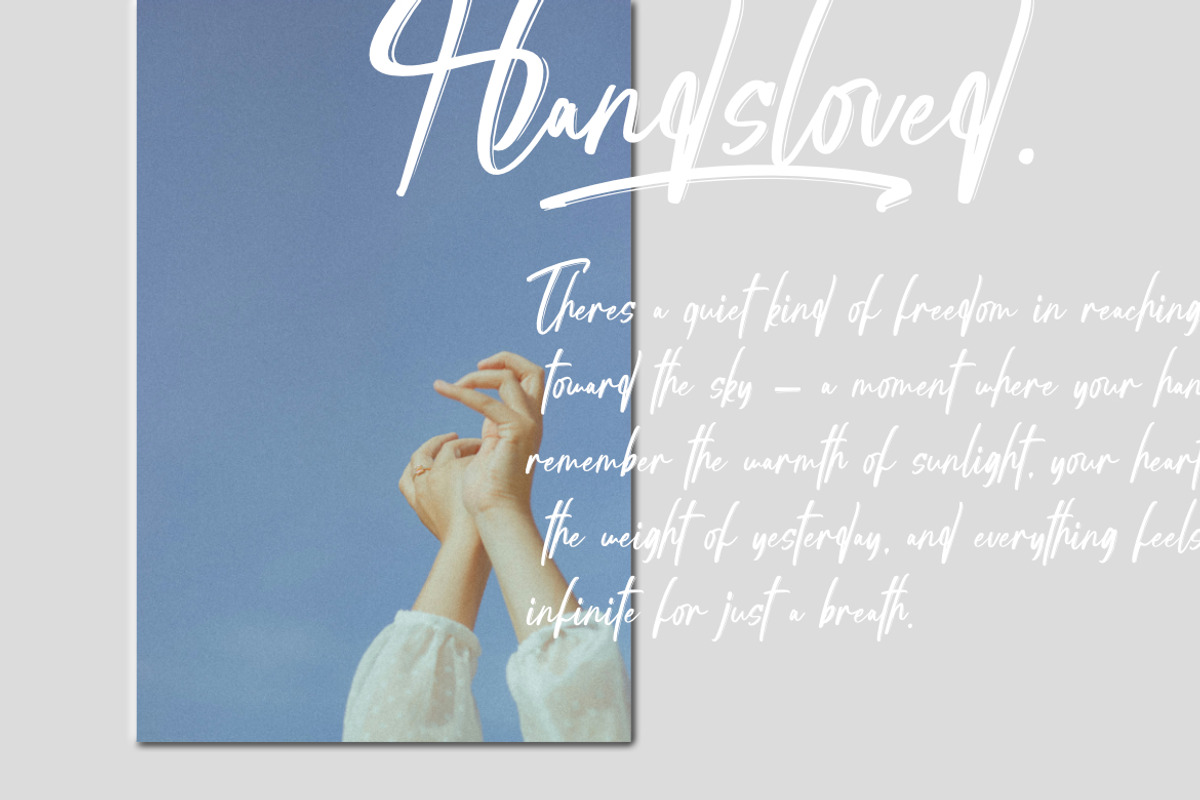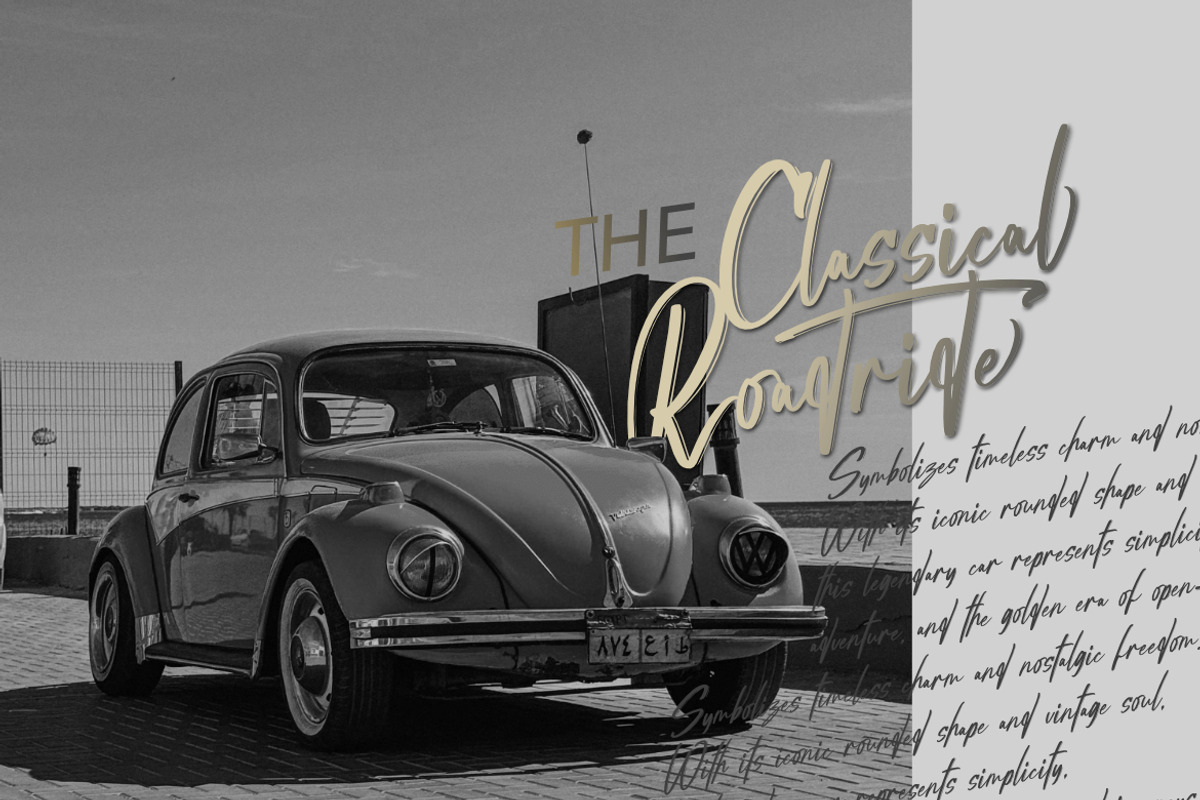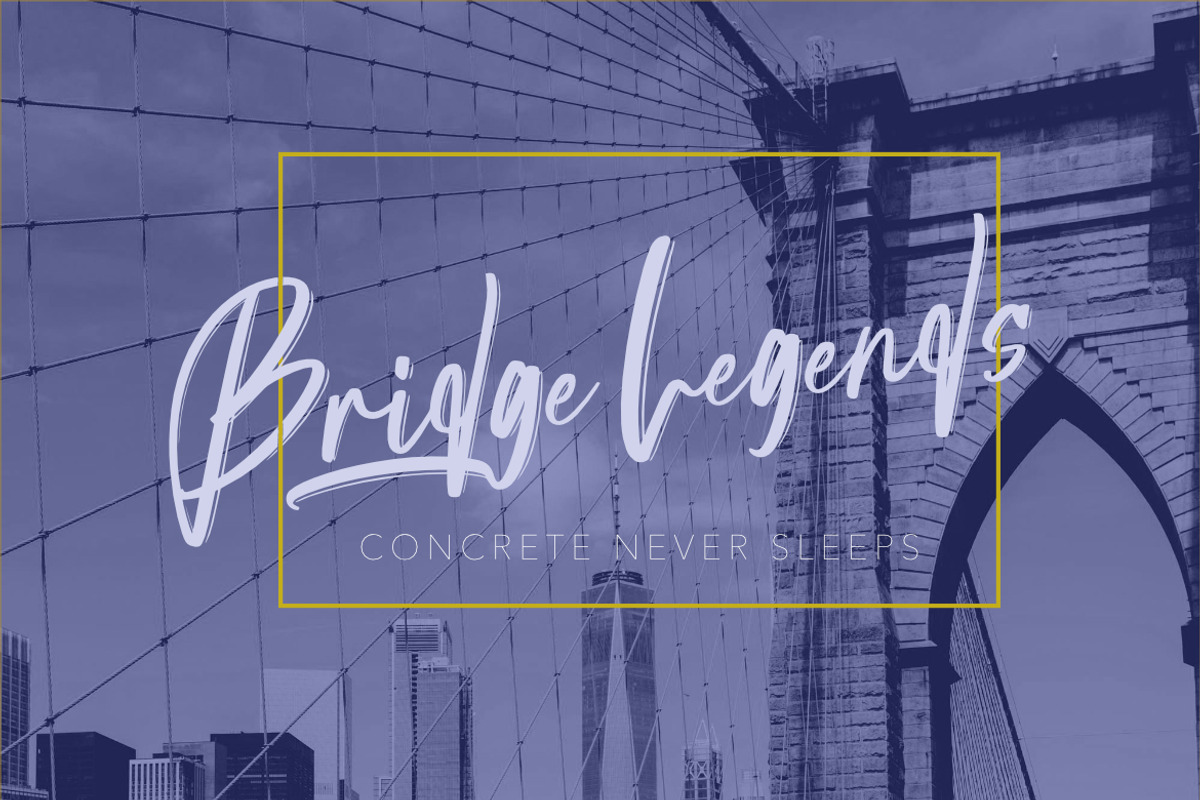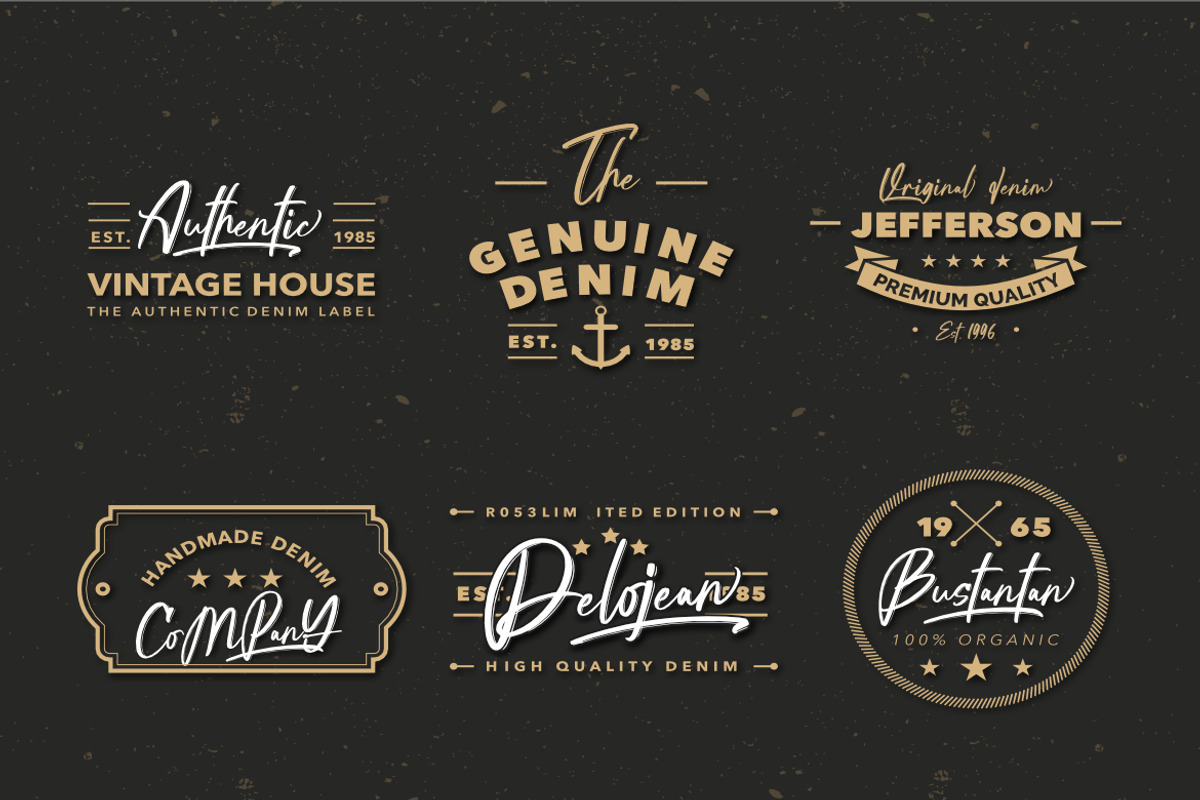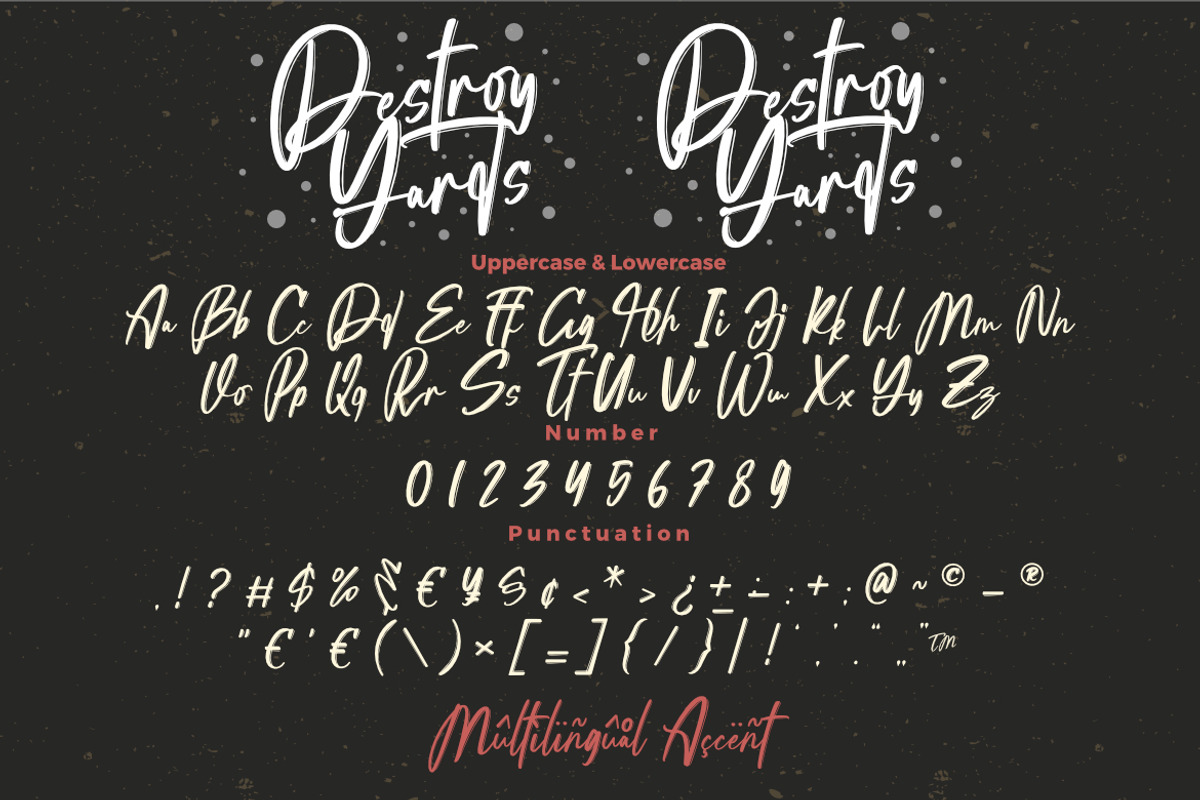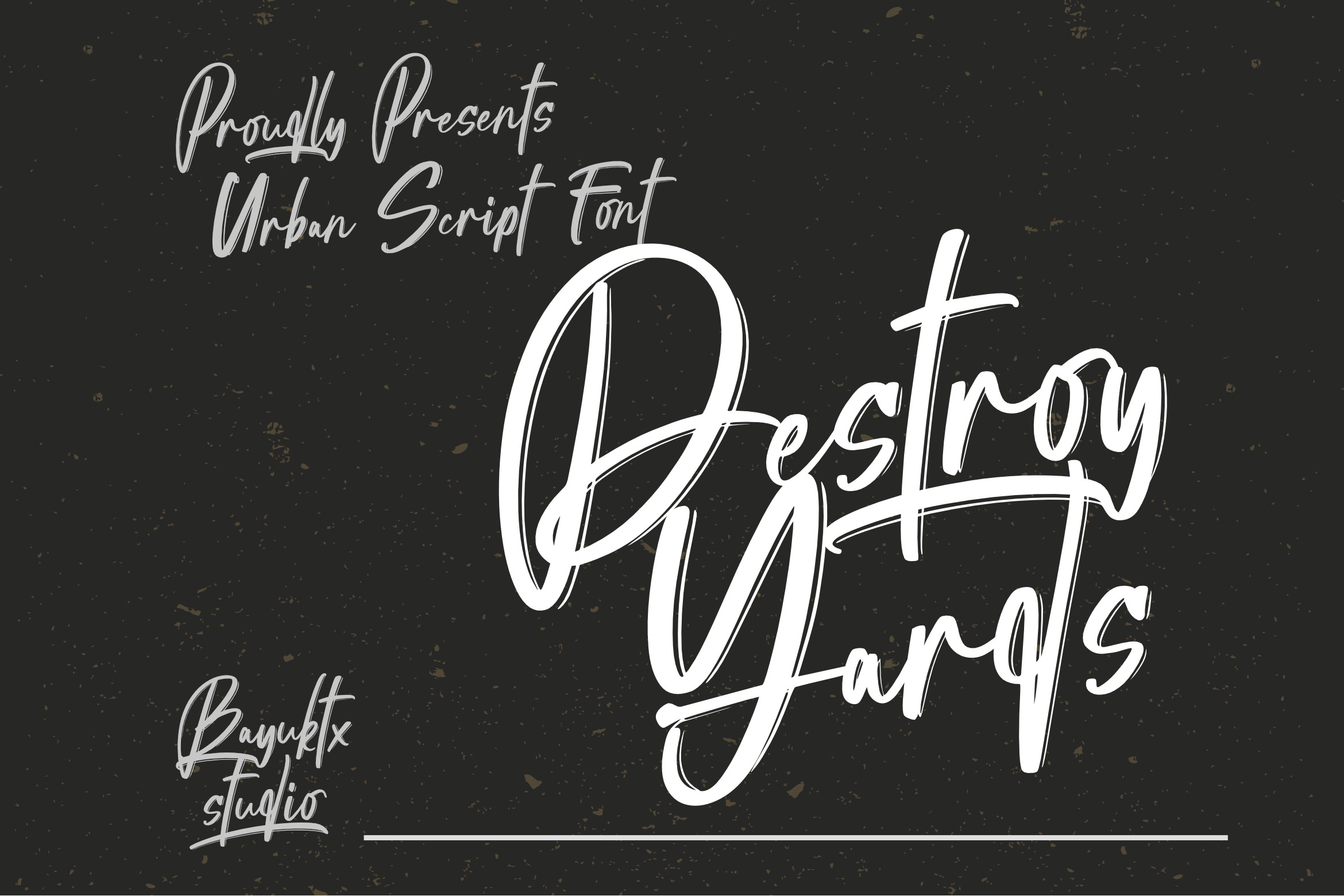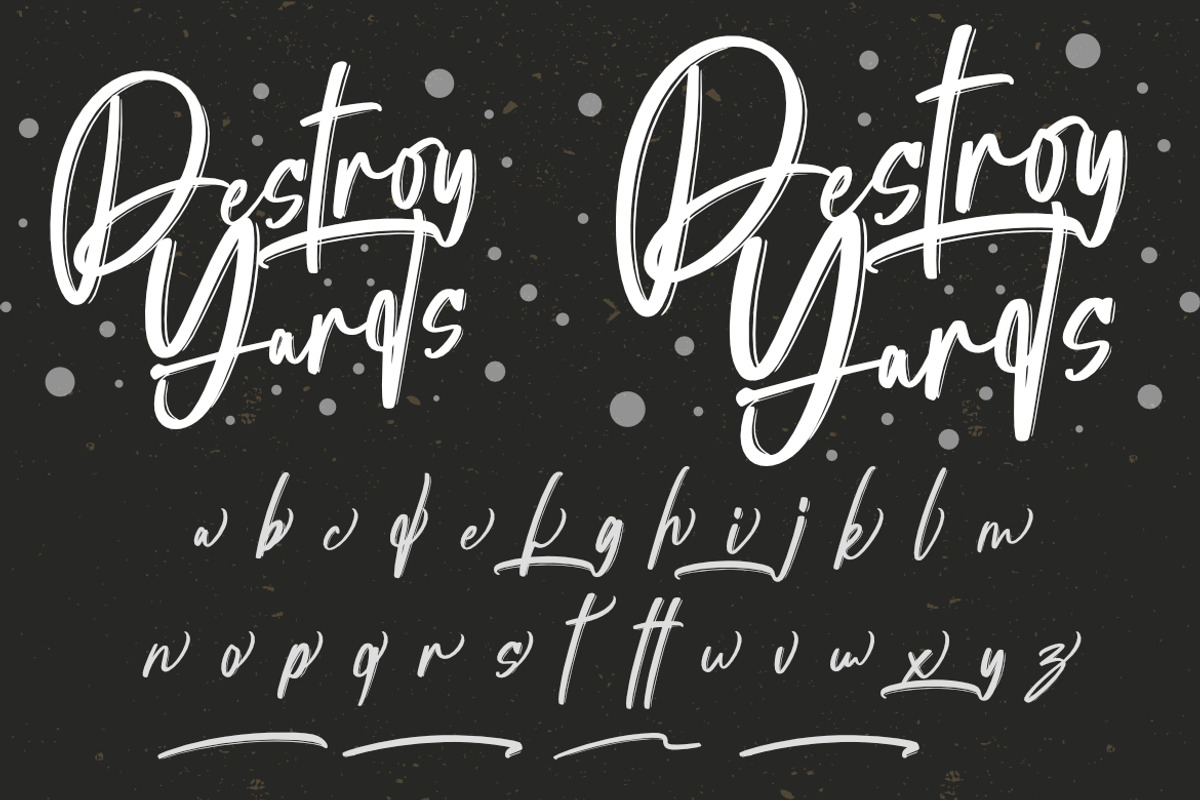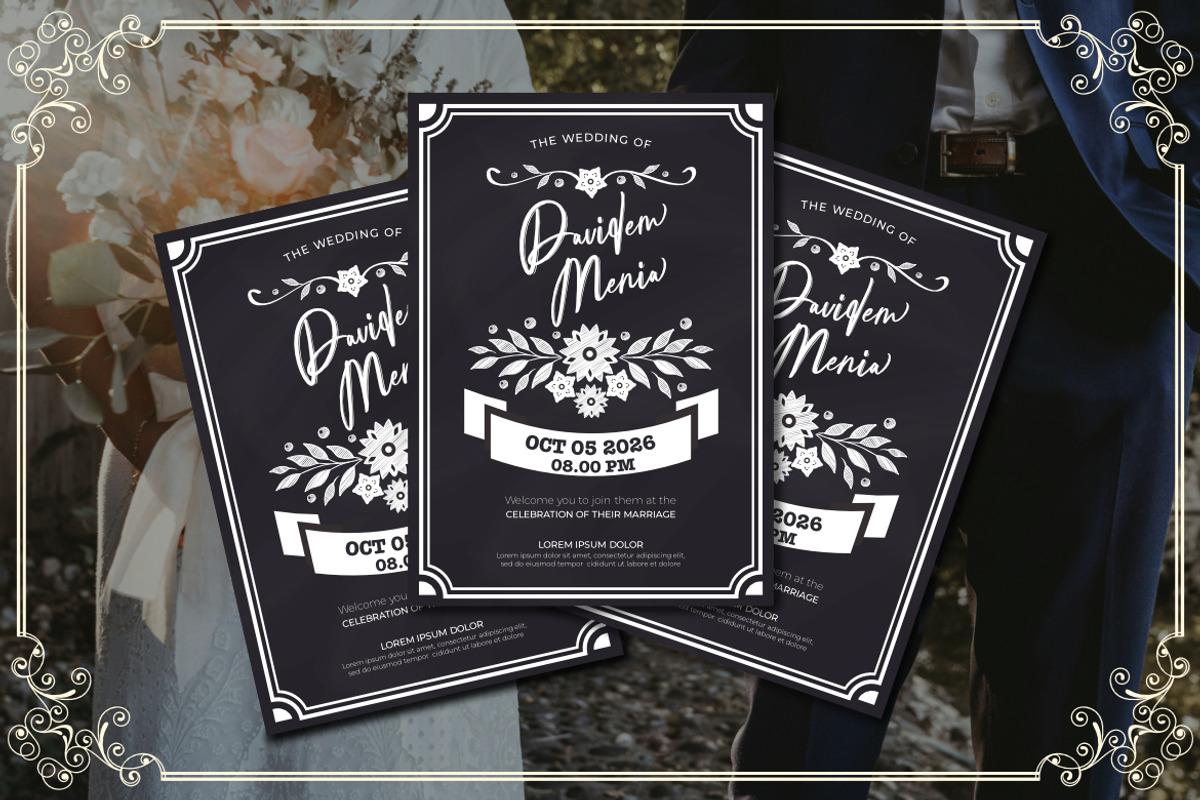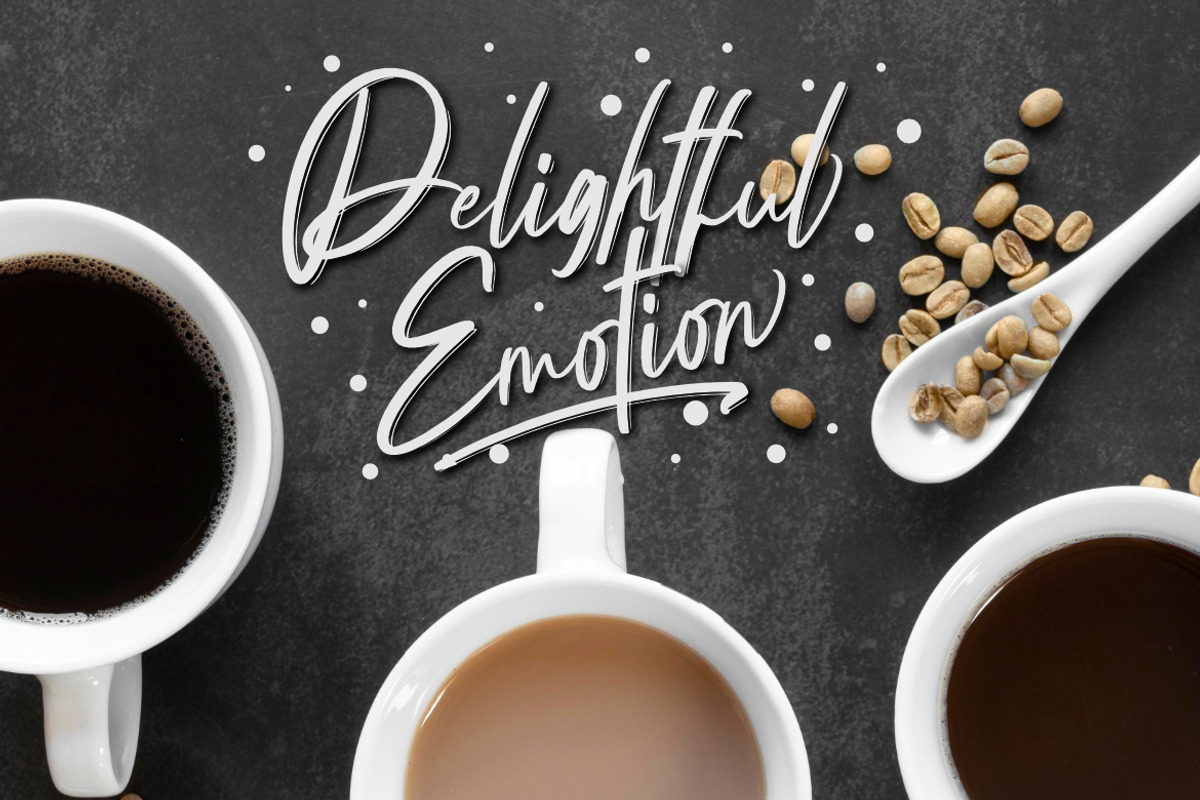
Destroy Yards – Urban Script Font
Destroy Yards Script Font captures the fearless energy and raw motion of street culture. Designed with expressive strokes, dynamic flow, and urban attitude, this typeface reflects the rhythm of skateparks, graffiti walls, and youthful rebellion.
Each letter moves with natural freedom — rough, energetic, and spontaneous — making Destroy Yards ideal for projects that need confidence and street-smart creativity. Perfect for fashion graphics, branding, or eye-catching headlines, this font delivers authentic movement and a handcrafted urban edge.
Suitable For :
- Fashion & Skateboard Branding
- Graffiti Posters & Album Covers
- Urban Ads & Merchandise
- Youth Culture Projects
- Sport & Lifestyle Logos
With Destroy Yards Script Font, your design speaks with movement, attitude, and unstoppable city energy.